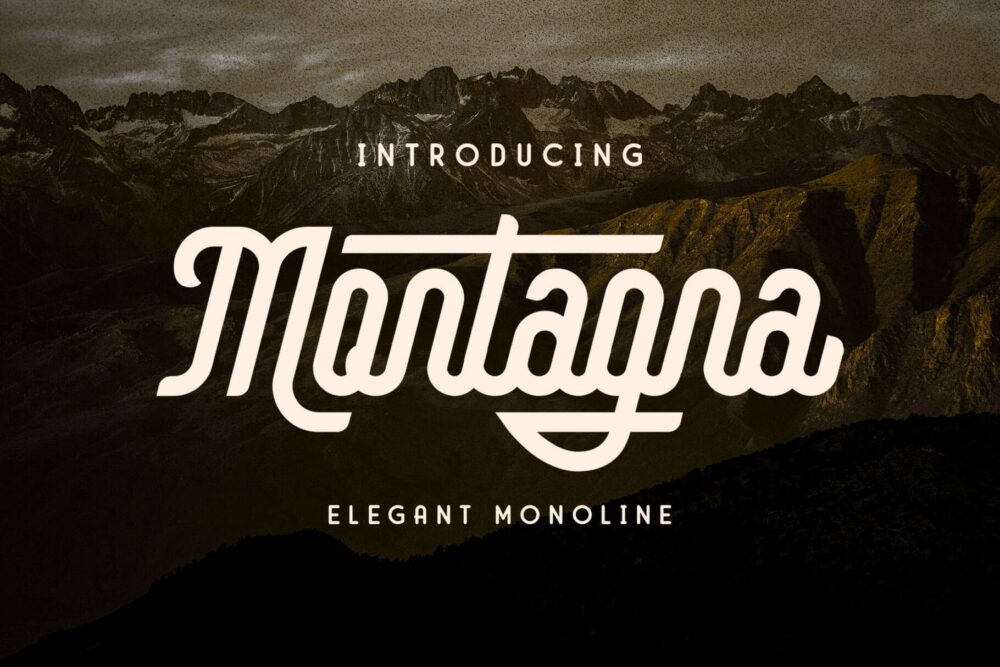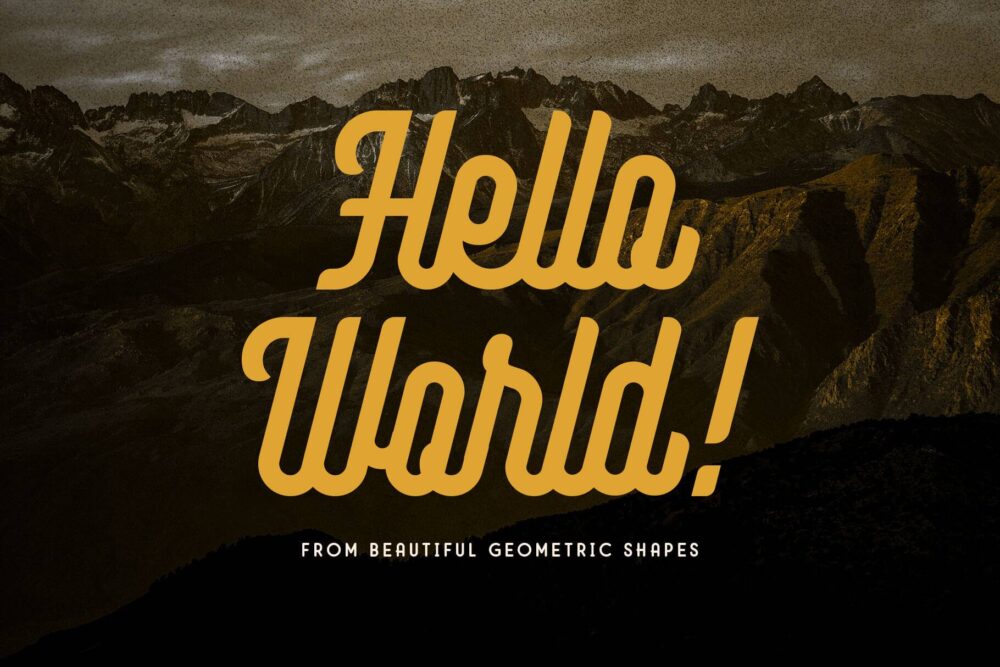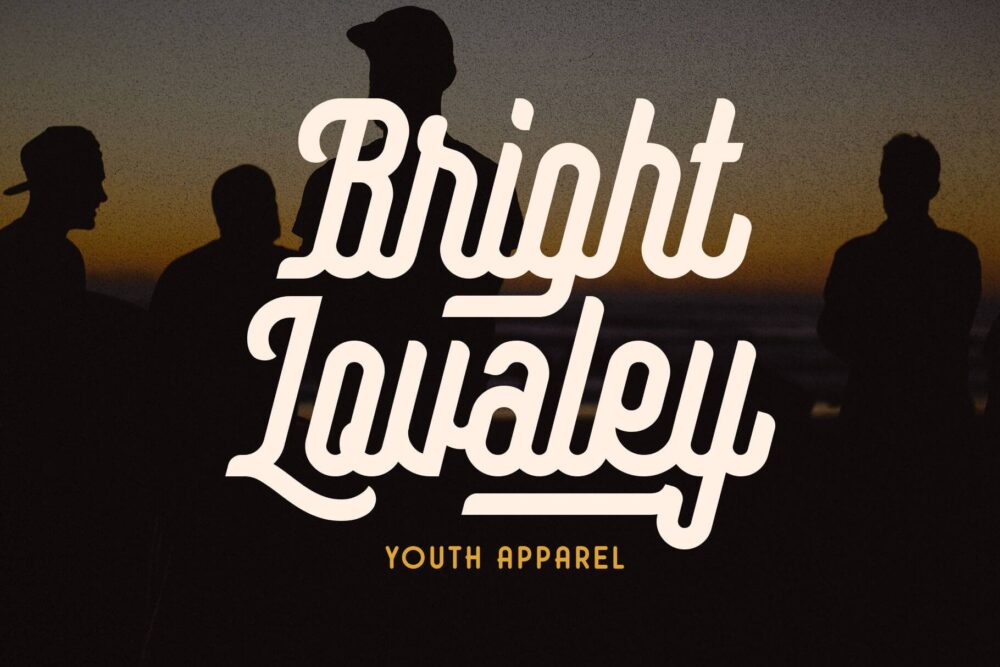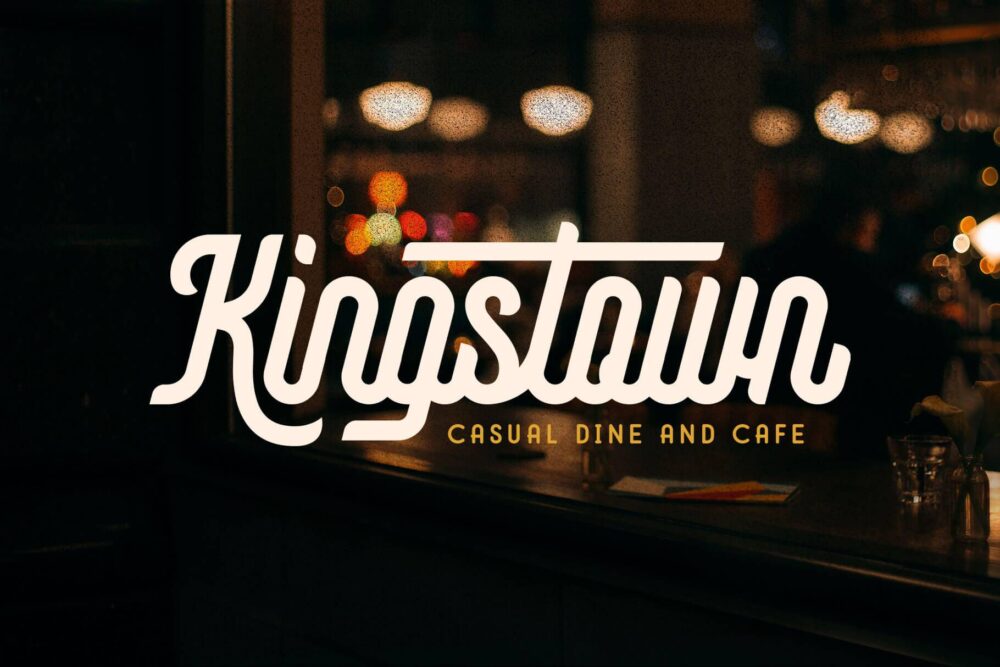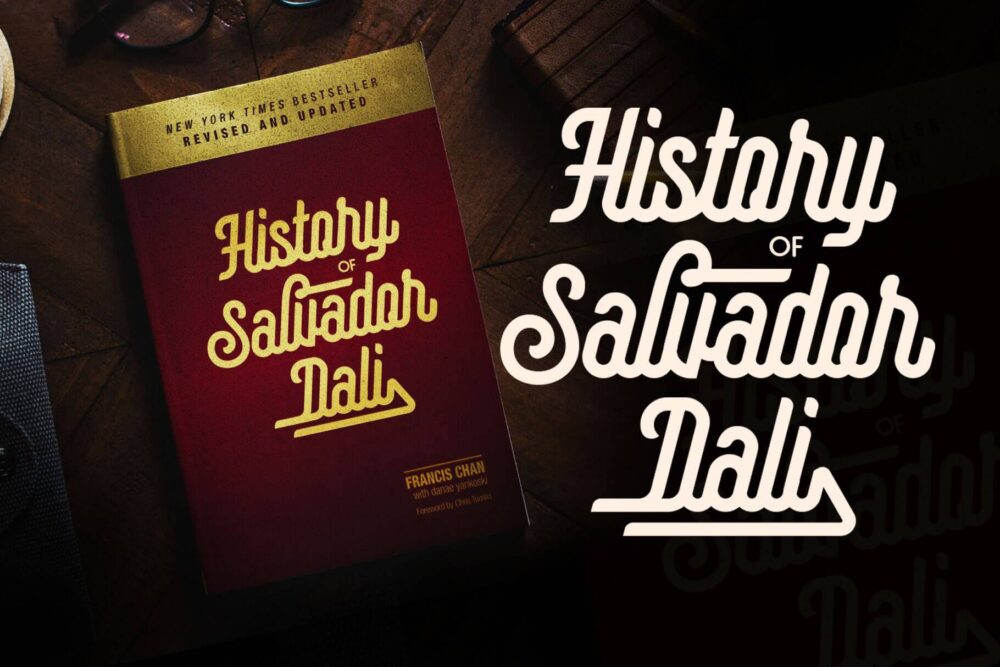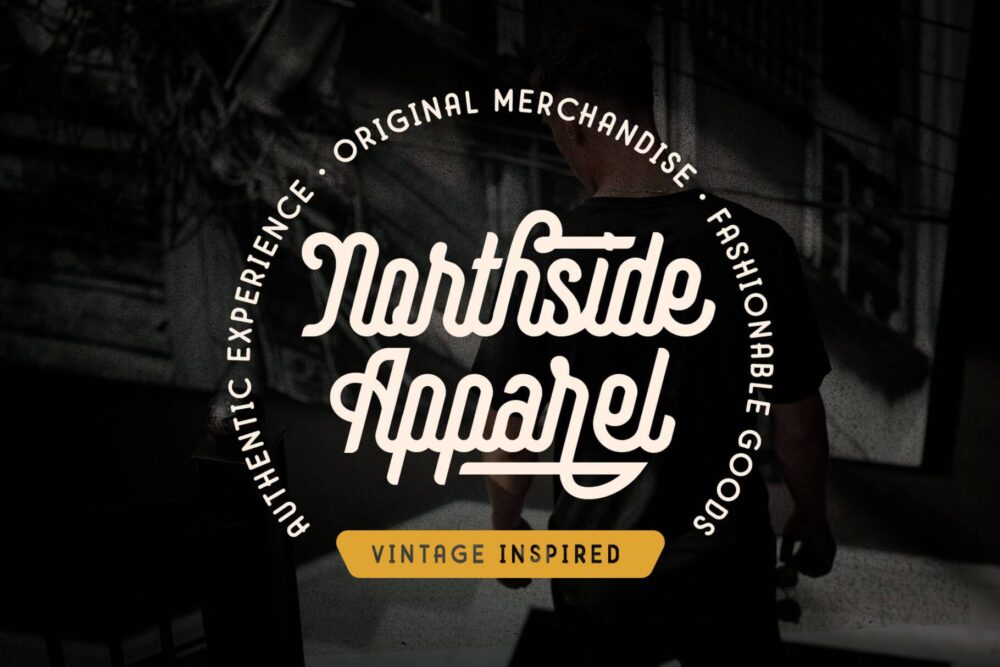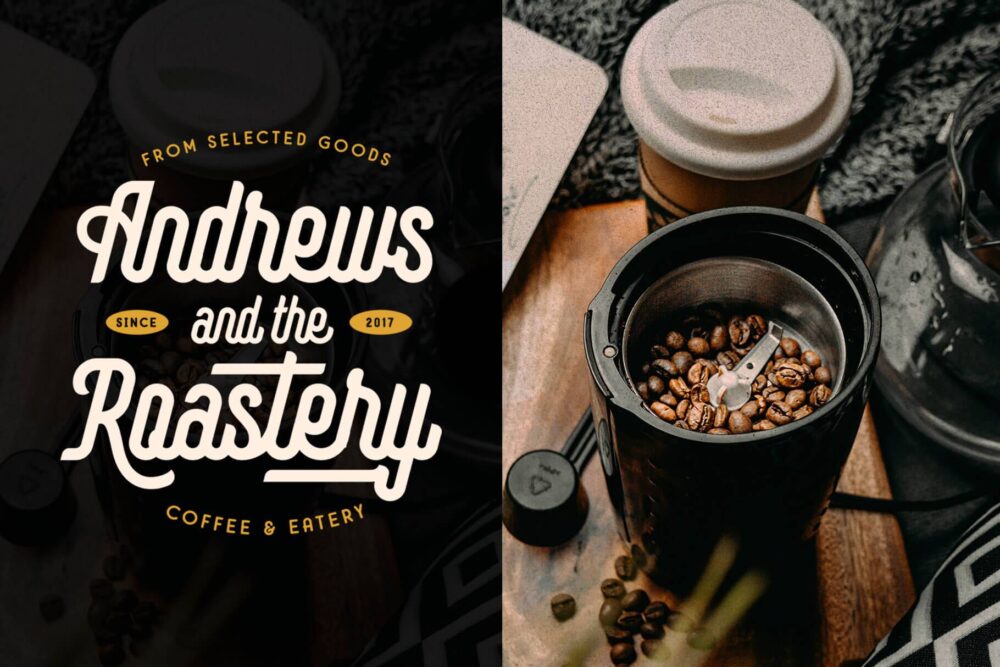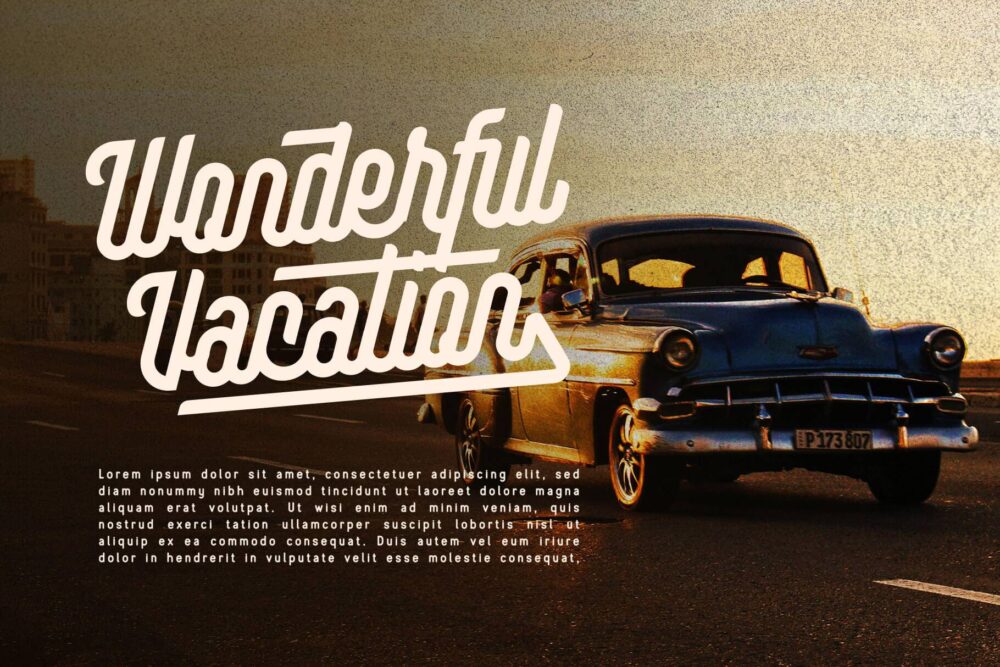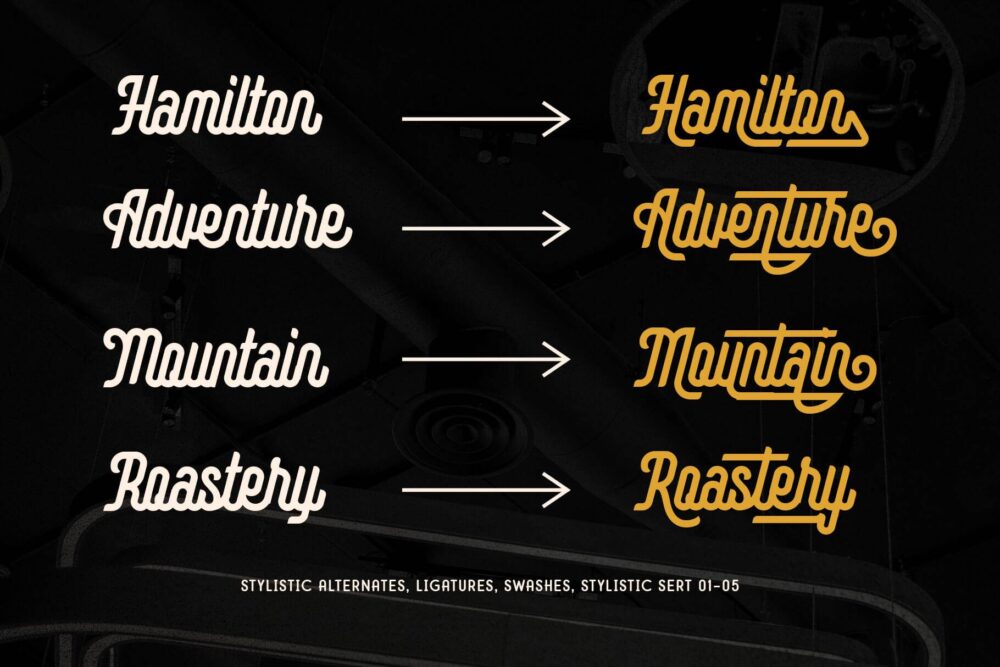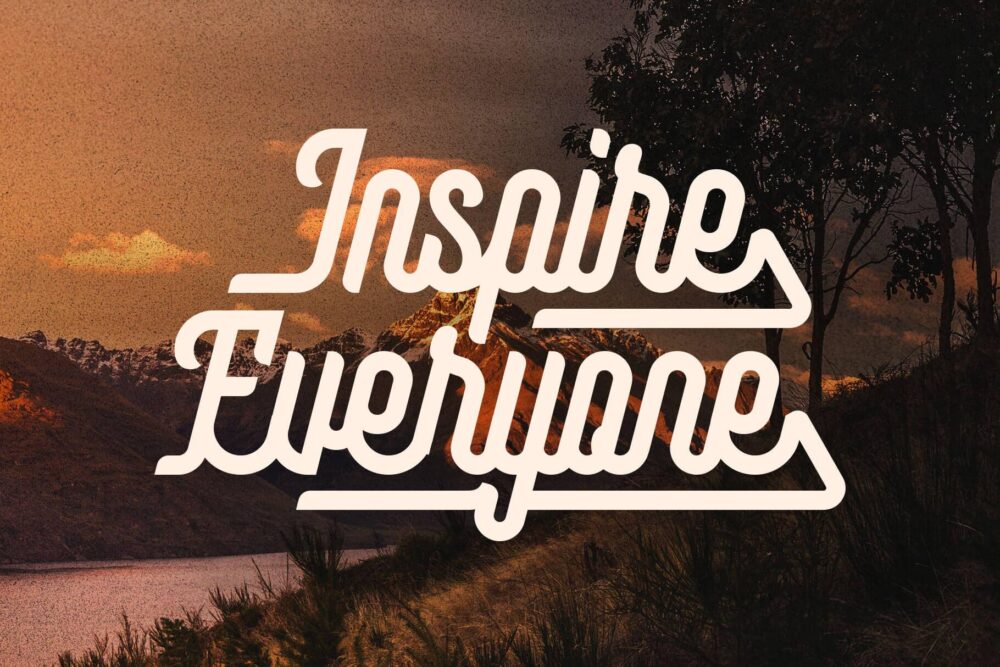
Introducing our brand new monoline font Montagna, a very tidy monoline with short stems. Inspired by a retro poster from the 80s, old-school neon-sign, and modern-vintage design.
Montagna is a versatile font that you can use for any styles of such as funky, retro, techno, modern, minimalist, and many more! Equipped with straight swash to give you the more elegant looks and a lot of alternates characters that allow you to make the brilliant combination of typography.